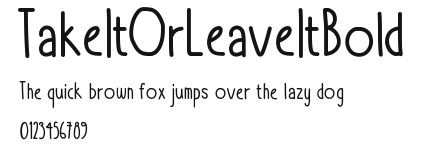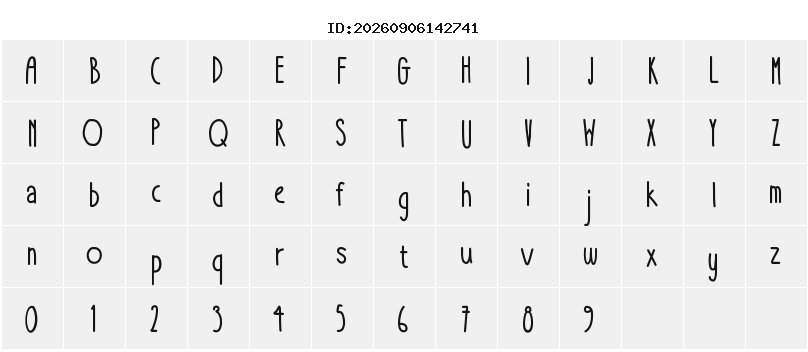
TakeItOrLeaveItBold Preview
• Font Name: TakeItOrLeaveItBold
• Full Font Name: TakeItOrLeaveItBold
• PostScript Name: TakeItOrLeaveItBold
About TakeItOrLeaveItBold.ttf
TakeItOrLeaveItBold.ttf is a modern, elegant sans-serif font designed for ultimate readability and visual harmony. Perfect for branding, headlines, web design, and print materials.